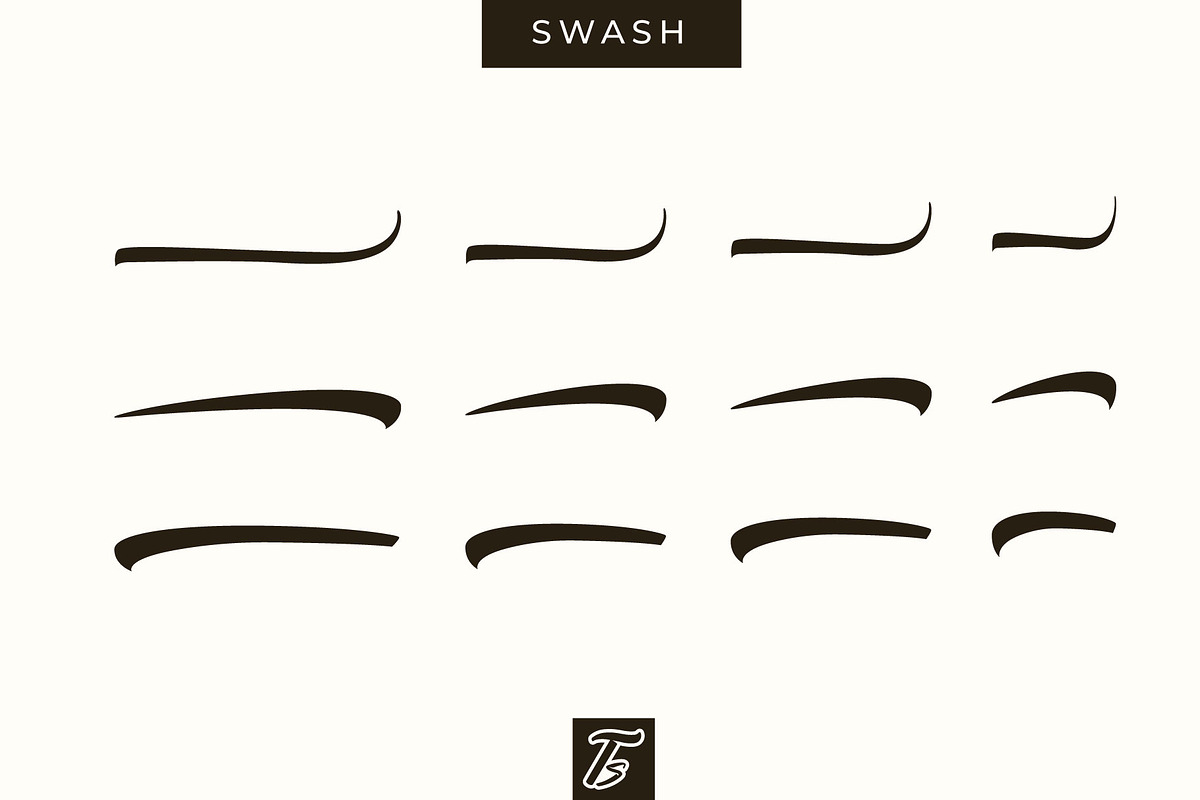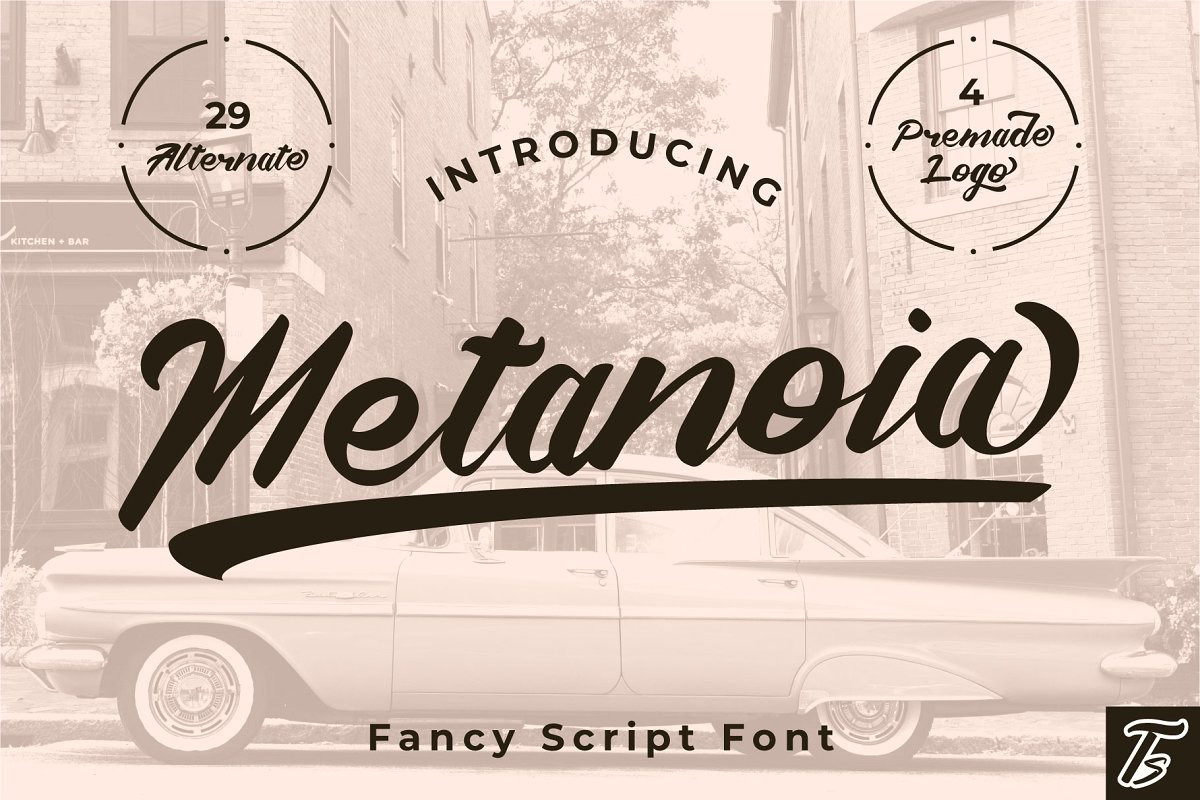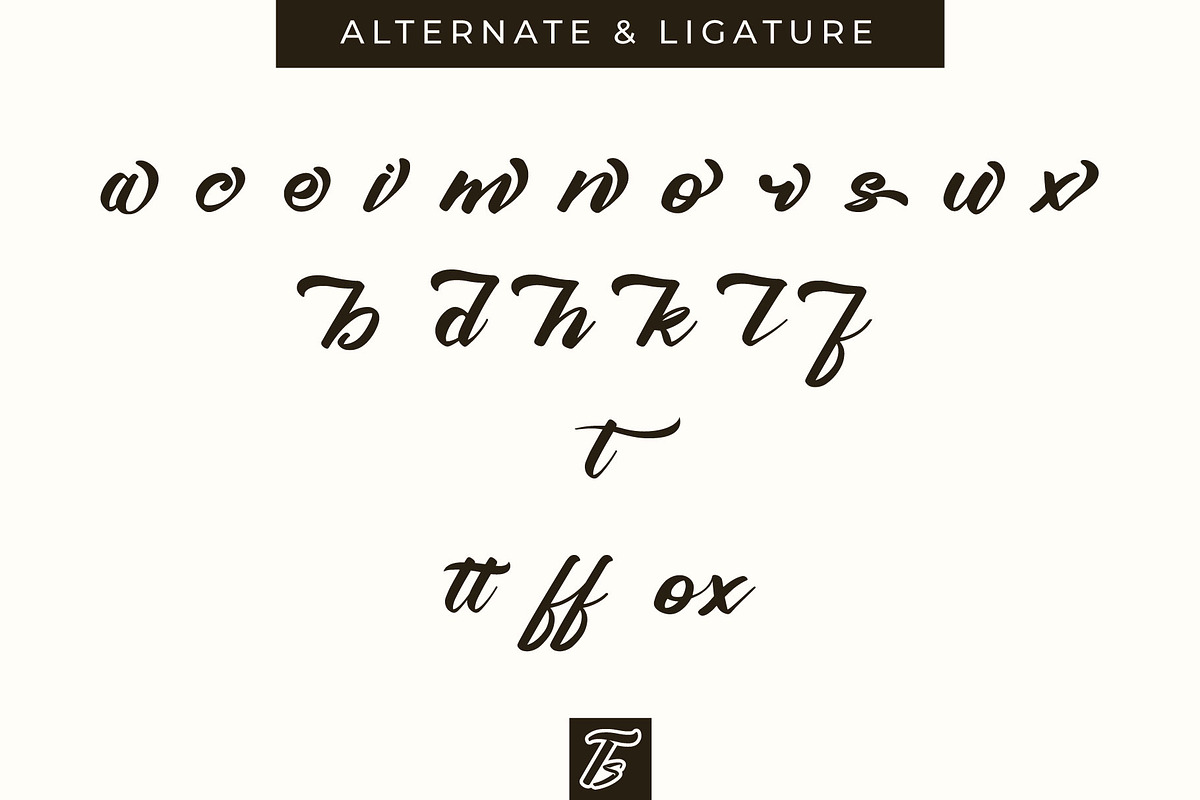
Metanoia - Fancy Font
Metanoia - a stylish & bold script font. This font is perfect for branding logo, illustration, apparel design, and many more. This font also support multilingual, number and symbol.
Metanoia is a handwritten font with a vintage feel. Use it to add a unique charm to any design project. Up to 3 level alternates, more than 29 alternates character each style. And EXTRA! 4 Premade Logo
~More than 200+ of glyphs (include Uppercase, Lowercase, Numerals & Punctuations, Ligature, Stylistic, and, Multilingual Support)